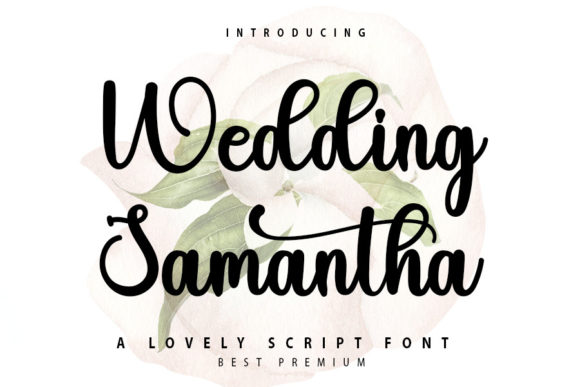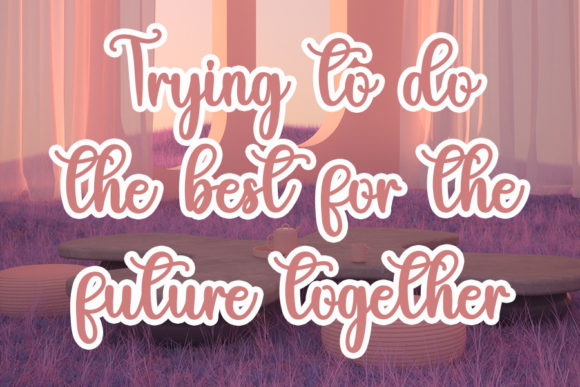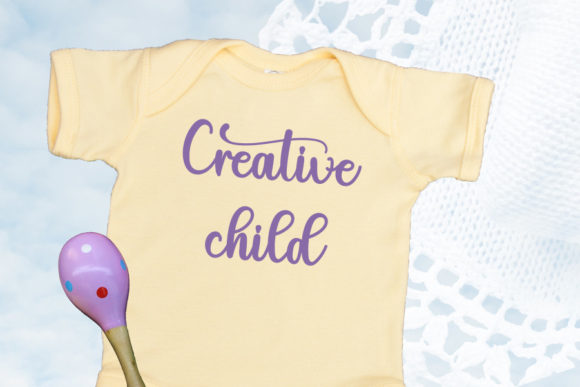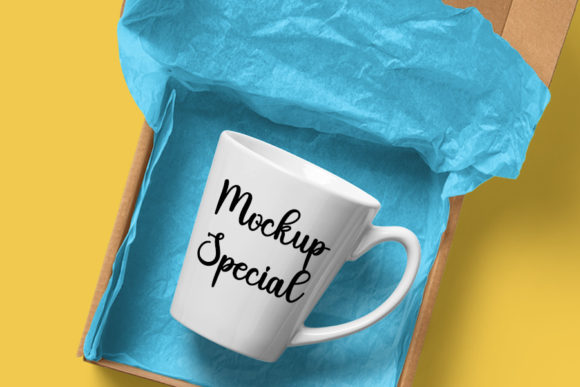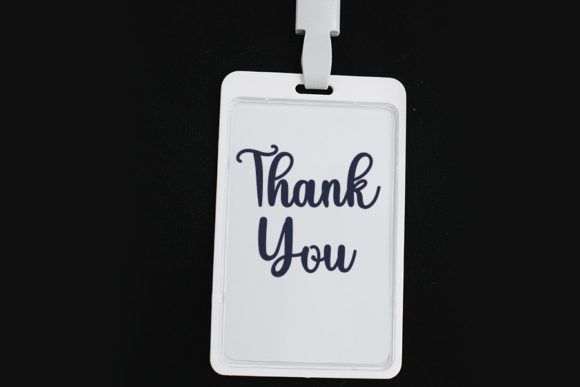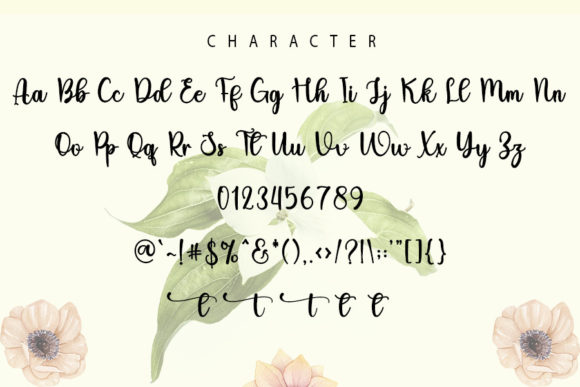
Wedding Samantha Font
About Wedding Samantha Font
Wedding Samantha is a beautiful and refined script font that exudes class, elegance, and a modern aesthetic. With its sophisticated and stylish appearance, Wedding Samantha is a versatile font suitable for a variety of design applications, including logos, branding, invitations, stationery, wedding designs, social media posts, and much more.
The font’s classy and elegant characteristics make it well-suited for creating impactful logos and establishing a strong brand identity. Its refined script adds a touch of sophistication, making it a go-to choice for businesses and projects that aim for a stylish and polished appearance.
In the realm of wedding designs, invitations, and stationery, Wedding Samantha shines by bringing a sense of beauty and grace. Whether applied to formal wedding invitations or other stationery elements, the font elevates the visual appeal with its modern and refined script, leaving a lasting impression on recipients.
Social media posts benefit from the font’s eye-catching design, allowing for the creation of visually stunning graphics and messages. Wedding Samantha adds a contemporary and stylish flair to promotional materials, ensuring that your content stands out in the online landscape.
One noteworthy feature of Wedding Samantha is its PUA encoding, or Private Use Area encoding. This means users can easily access a variety of amazing glyphs and ligatures, enhancing the font’s versatility and providing designers with the tools to customize their projects effortlessly.
In summary, Wedding Samantha is not just a font; it’s a beautiful and refined design asset that brings a touch of class and elegance to your creative projects. With PUA encoding, accessing its amazing glyphs and ligatures is seamless, allowing designers to fully explore its potential and create stunning visuals. Whether applied to branding, wedding designs, or social media, Wedding Samantha adds a modern and sophisticated touch to every design it graces.